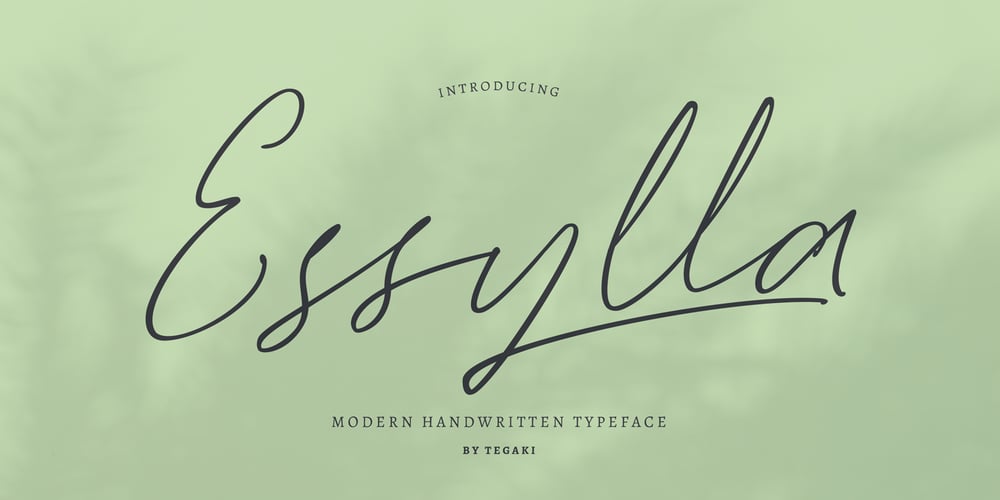
Essylla
Essylla font
Essylla Font Family was designed by Rudi Suhairi and published by Tegaki. Essylla contains 1 styles and family package options. Essylla was created with stylish and modern handwritten characters. This font is PUA encoded. Essylla is a modern handwritten style that comes with Extended Latin Characters. Essylla works perfectly for logos, display, product branding, wedding invitation card, stationary, packaging, clothing, flyer, apparel, magazines, brochures, labels, posters, badges, etc.Essylla comes with 281 glyphs and 52 alternate characters contain with OpenType features (supported with contextual alternates mode). Essylla also comes with 11 extended ligatures that allowing you to make stuff looks more exclusive and pro standard.If you need help or advice, please contact me by e-mail “tegakiscript@gmail.com”Thank you for your purchase!